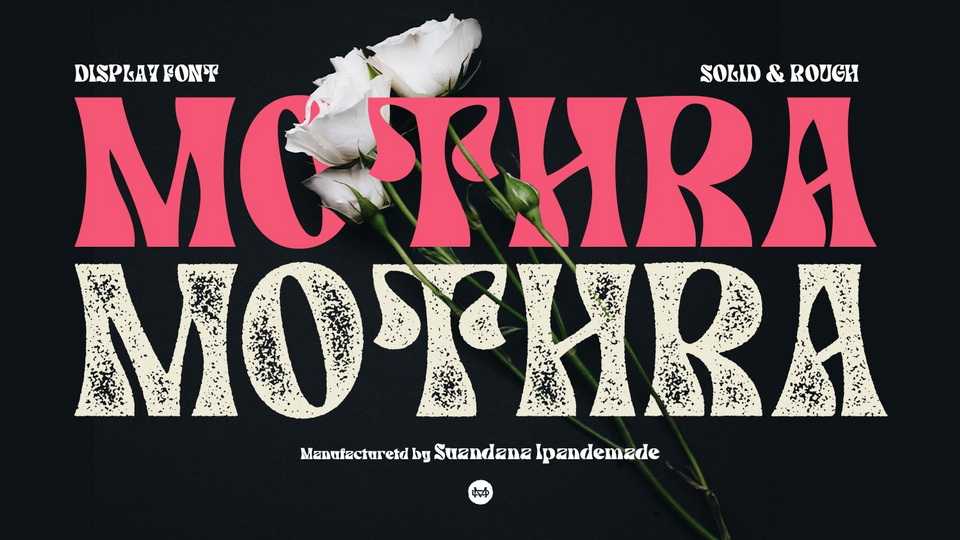
Download Mothra font, a bold display typeface with a vintage appearance. Mothra font is perfect for any branding, product packaging, invitation, quotes, t-shirt, label, poster, logo etc.